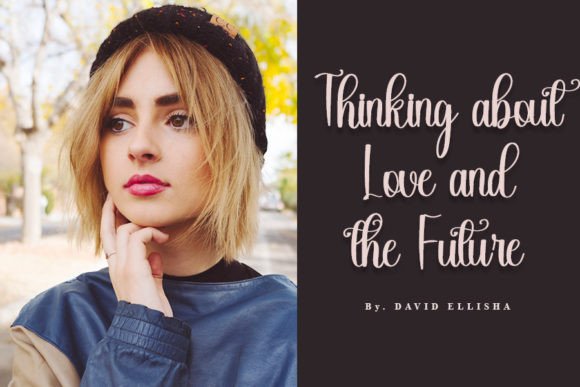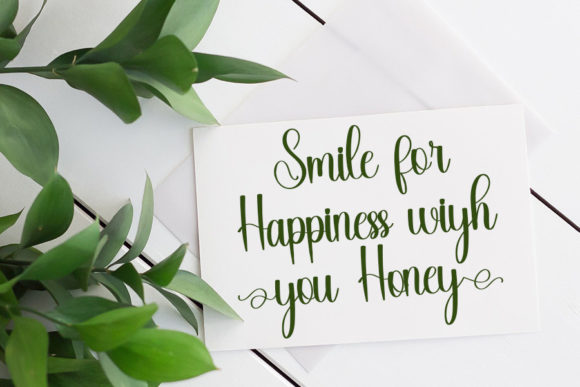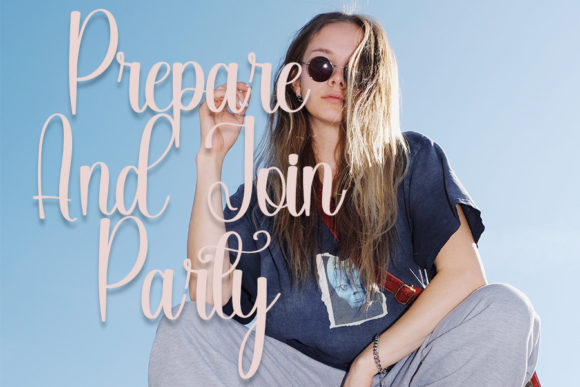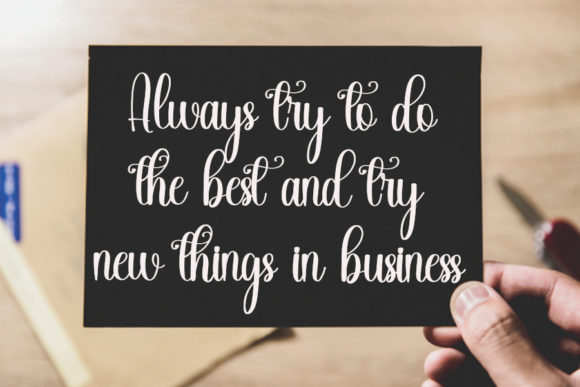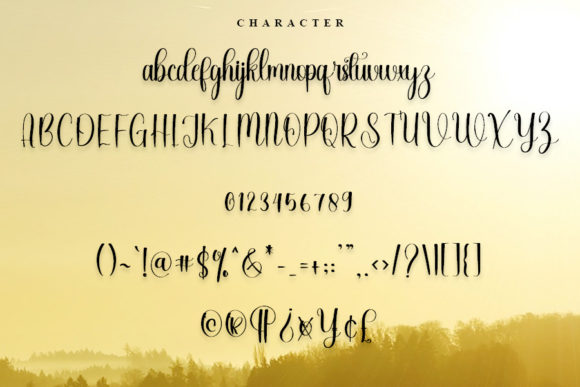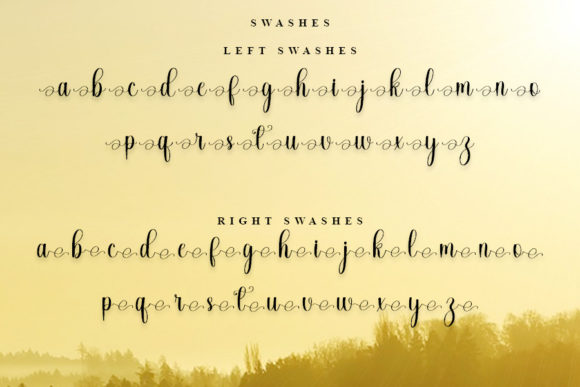
Fantastic Font: Elevate Your Designs with Elegance and Sophistication
In the world of typography, fonts play a crucial role in conveying the tone and personality of a design. For designers and crafters seeking to add a touch of elegance and sophistication to their work, the Fantastic Font is an excellent choice. This beautiful and refined script font boasts a classy, modern look that’s perfect for a wide range of applications, from logos and branding to invitations, stationery, and wedding designs.
What Makes Fantastic Font Stand Out?
Fantastic Font’s unique blend of classic and modern elements sets it apart from other script fonts. Its elegant and refined aesthetic makes it an ideal choice for designers looking to create sophisticated and eye-catching designs. Whether you’re working on a logo, branding project, or social media post, this font is sure to impress.
Key Features of Fantastic Font
• Classy and Elegant Design: Fantastic Font features a beautiful, refined script design that’s perfect for creating sophisticated and elegant designs.
• PUA Encoded: This font is PUA (Private Use Area) encoded, which means you can access all the amazing glyphs and ligatures with ease.
• Wide Range of Applications: Use Fantastic Font for logos, branding, invitations, stationery, wedding designs, social media posts, and much more!
• Modern Look: The font’s modern aesthetic ensures that your designs will look fresh and contemporary.
Fantastic Font offers numerous benefits for designers and crafters, including:
• Ease of Use: The font’s PUA encoding makes it easy to access and use the various glyphs and ligatures, saving you time and effort.
• Versatility: Fantastic Font’s elegant design and modern look make it suitable for a wide range of applications, from formal events to social media posts.
• High-Quality Design: The font’s refined and classy aesthetic ensures that your designs will look professional and polished.
In conclusion, Fantastic Font is an excellent choice for designers and crafters seeking to add a touch of elegance and sophistication to their work. With its classy, modern look and PUA encoding, this font is perfect for a wide range of applications. Whether you’re working on a logo, branding project, or social media post, Fantastic Font is sure to impress.